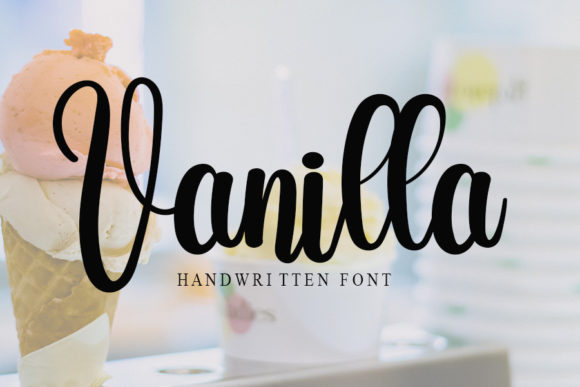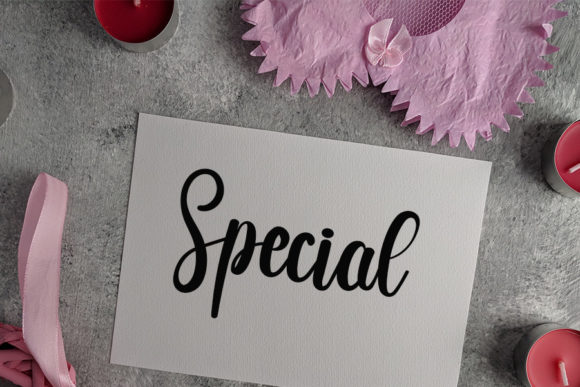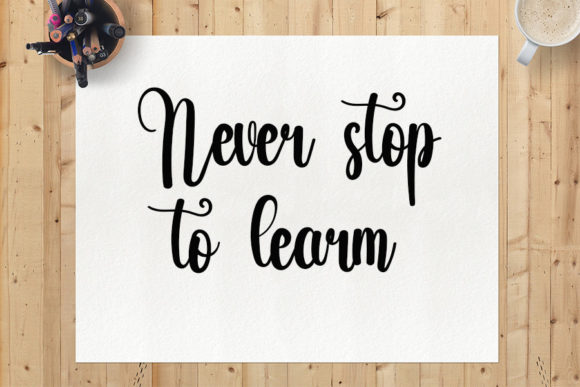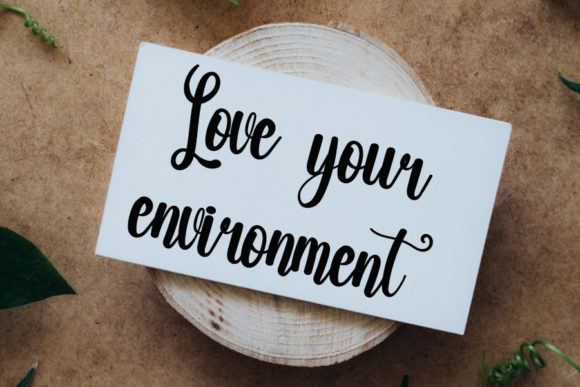
About Vanilla Font
Vanilla is a stylish handwritten font that effortlessly embodies a cool, modern vibe while maintaining a spotless and balanced form, drawing inspiration from classic calligraphy. Striking the perfect equilibrium between not being too thin or too thick, this font was meticulously designed to bring a touch of sophistication and variety to enhance the beauty of your diverse projects.
At its core, Vanilla exudes a contemporary and cool energy through its handwritten style. This characteristic not only adds a personal touch but also establishes an approachable and inviting vibe. Whether applied to digital platforms or tangible materials, the font’s adaptability makes it suitable for a range of projects that require a modern and refined aesthetic.
The font’s roots in classic calligraphy contribute to its spotless and elegant form. Each letter is carefully crafted to enhance the overall visual appeal, offering a seamless integration of timeless charm with a modern twist. This dual influence makes Vanilla a unique and compelling choice, embodying a perfect fusion of traditional and contemporary design elements.
A standout feature of Vanilla is its carefully balanced and varied appearance. The strokes and curves are thoughtfully arranged, creating a dynamic visual presentation that captures attention without overwhelming the viewer. This design decision ensures the font’s versatility, allowing it to enhance the beauty of a wide array of projects, from branding and logos to creative writing and beyond.
Whether you’re working on a sleek digital interface or crafting tangible designs, Vanilla injects a level of sophistication that complements the demands of modern design. Its cool handwritten style not only offers visual appeal but also provides a fresh and stylish take on classic calligraphy for contemporary design needs.
In summary, Vanilla stands out as a cool handwritten font with a modern vibe and spotless form. Its balanced and varied appearance, inspired by classic calligraphy, positions it as a versatile and appealing choice for projects seeking a touch of sophistication. Let Vanilla enhance the beauty of your designs, as it effortlessly elevates the visual allure of your creative endeavors.